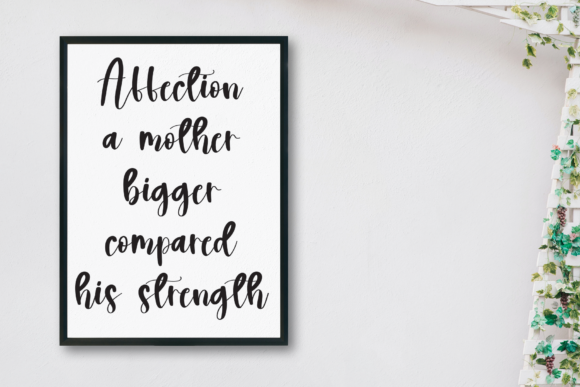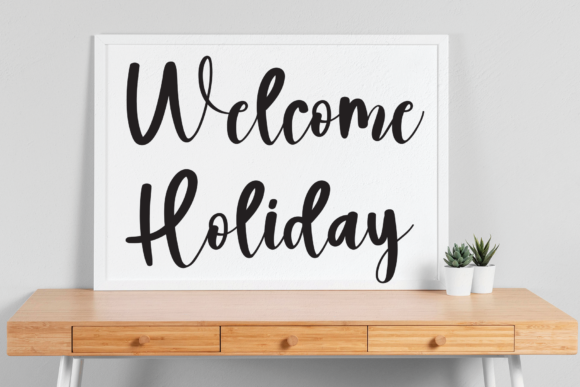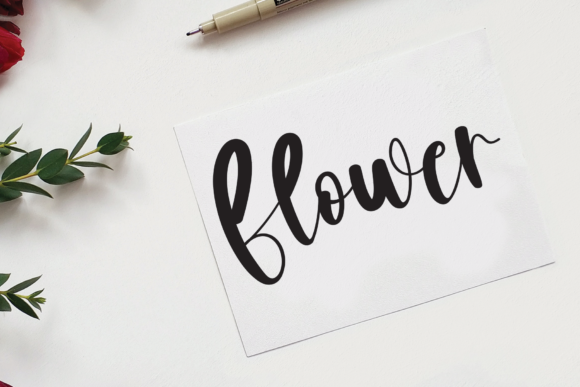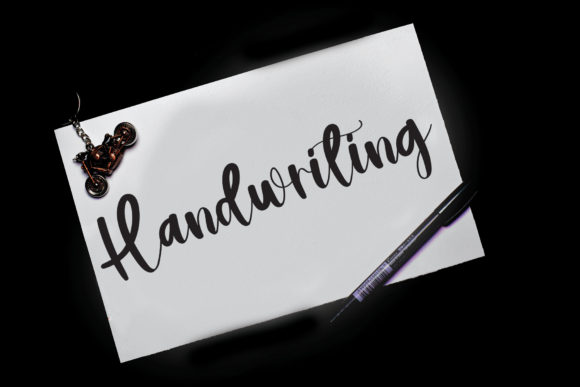
Hello Baby Font
About Hello Baby Font
Hello Baby is a unique and elegant handwritten font. It looks beautiful on a variety of designs requiring a personalized style, such as wedding invitations, thank you cards, weddings, greeting cards, logos and so on.